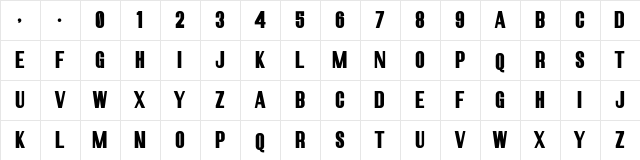
Robusta II Sans Regular
| Foundry | Runsell Studio |
| Designer | Saeful Maarif |
Design Context for Robusta II Sans Typeface
Robusta II Sans is a composed and adaptable typeface that performs quietly and consistently across a wide range of design contexts.